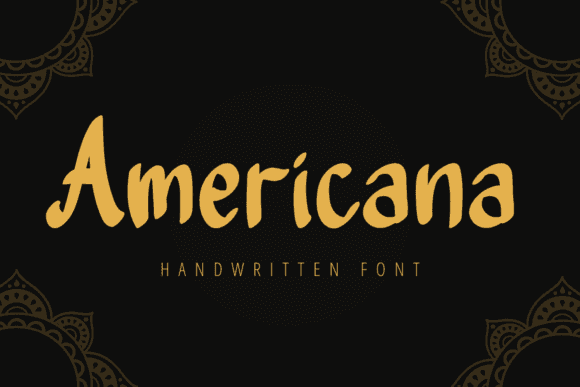
Americana Font for Cricut, Silhouette and Printable Designs
Americana is a timeless display font designed for cutting machines and digital design tools. With vintage Americana influence and a strong visual presence, it’s perfect for creating standout text in DIY crafts and printables.
This font entity delivers bold characters and smooth curves, allowing for clean cuts and vibrant prints. Whether crafting for July 4th celebrations or designing rustic signage, Americana adds a classic, all-American feel to any project.
Ideal for Cricut and Silhouette users, it blends nostalgia and function across a range of handmade or commercial designs.
- Classic American-inspired style
- Designed for clean cutting and printing
Q: What kind of font is Americana?
A: Americana is a bold, patriotic-inspired display font designed for use with Cricut, Silhouette, and printable crafts. Its striking letters and unique design make it ideal for creating eye-catching banners, signs, and home decor. Additionally, the anchak font for crafting projects complements Americana perfectly, allowing for seamless integration into various designs. Whether you're preparing for a holiday celebration or a family gathering, this font adds a touch of flair to your creative endeavors.